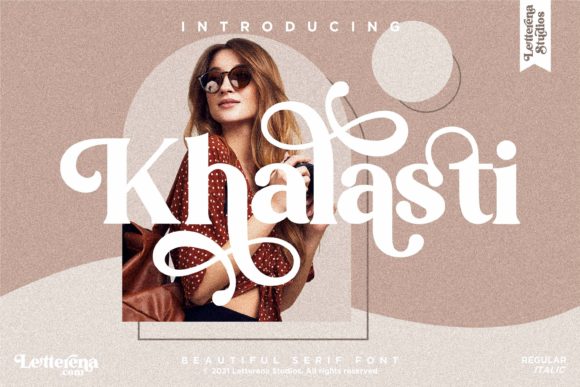
In a world of digital communication, your words carry the weight of first impressions. Let them dance across the page with the grace and charm of Khalasti, a font that captivates hearts and ignites imaginations. Picture your wedding invitations, adorned with the timeless elegance of Khalasti's serifs, each letter a testament to your enduring love.
Khalasti is not just a font; it's an artistic expression, a symphony of curves and flourishes that transforms ordinary text into a visual masterpiece. Its bold strokes command attention, while its delicate details whisper of sophistication. With Khalasti, your words become an extension of your personality, reflecting your impeccable taste and keen eye for aesthetics.
But Khalasti's beauty is not limited to wedding envelopes. Its versatility extends toã�‚ã‚‰ã‚†ã‚‹ãƒ‡ã‚¶ã‚¤ãƒ³é ˜åŸŸ, from branding and logos to brochures and posters. Its chunky letters bring a touch of whimsy to playful designs, while its timeless style adds a touch of sophistication to corporate presentations.
With Khalasti at your fingertips, you'll discover a newfound joy in creating. Its intuitive design and smooth flow allow your creativity to flourish, turning even the most mundane tasks into delightful experiences. Whether you're a seasoned designer or just starting, Khalasti will guide you effortlessly through your design journey.
So, embrace the allure of Khalasti and watch your designs transform into works of art. Let its elegant strokes elevate your messages, its playful curves ignite smiles, and its timeless beauty leave a lasting impression. Download Khalasti today and embark on a creative adventure like never before.